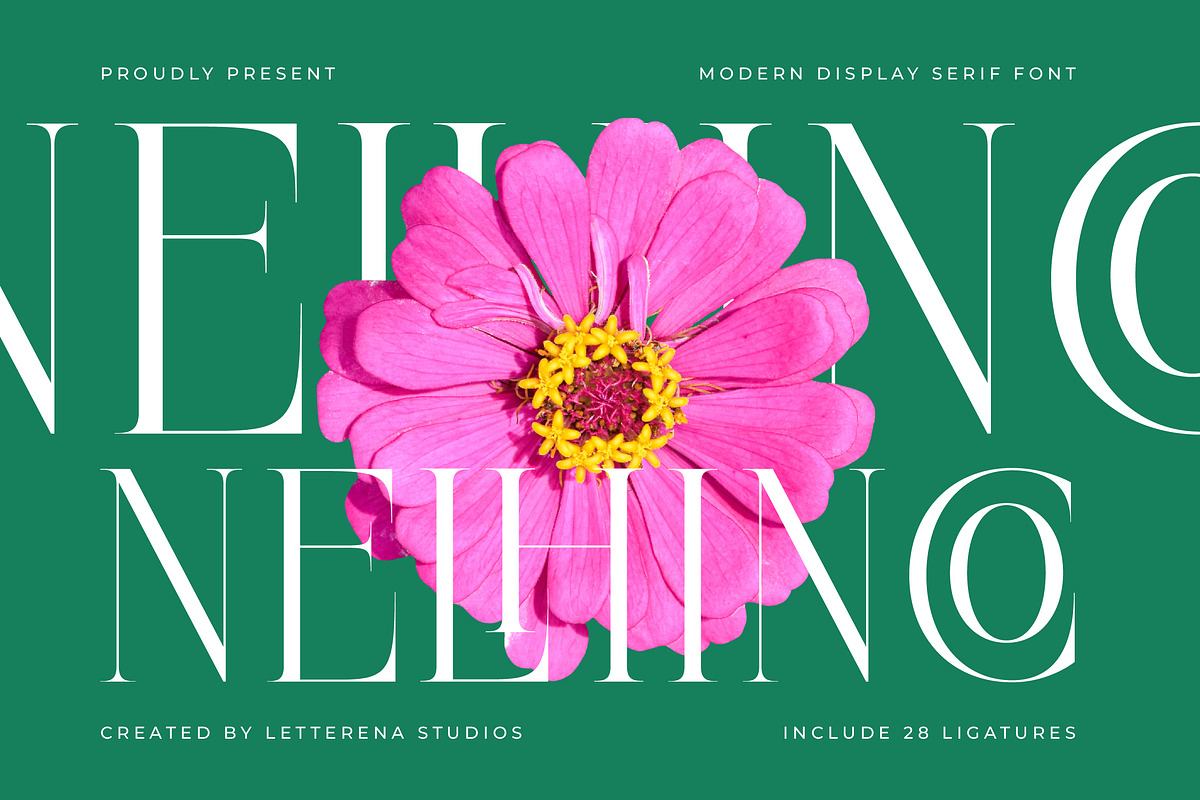
Nelhinco Modern Display Serif Free Download
Nelhinco – Modern Display Serif Font Free Download is a bold and stylish typeface that blends traditional serif elegance with a contemporary edge. With high contrast strokes, sharp serifs, and unique letter shapes, this font is perfect for fashion branding, editorial layouts, logo design, and premium packaging.
Nelhinco – Modern Display Serif Font Free Download stands out with its confident personality and refined details. It’s ideal for projects that demand sophistication, impact, and modern flair. Whether you're designing magazine covers, boutique branding, or social media graphics, Nelhinco delivers strong visual presence.